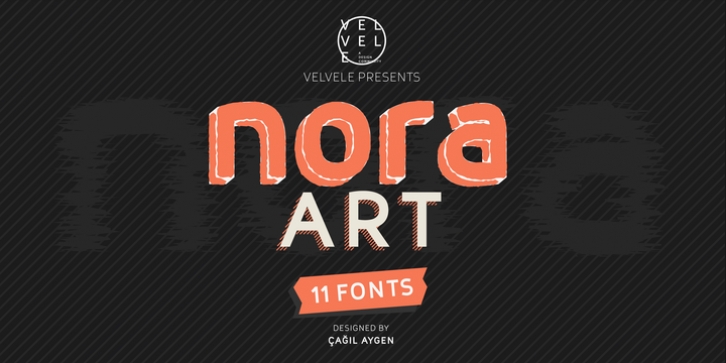
Publisher: Velvele Design Community
Nora Art is based on Nora Grotesque. It transformed with variations of every letter by using different styles. This amazing font family is based on layer combinations and gives endless possibilities to make various designs. Each style could be used separate or merged in order to create any kind of design you can imagine! It is the perfect solution for logos, headlines and posters that really stand out.